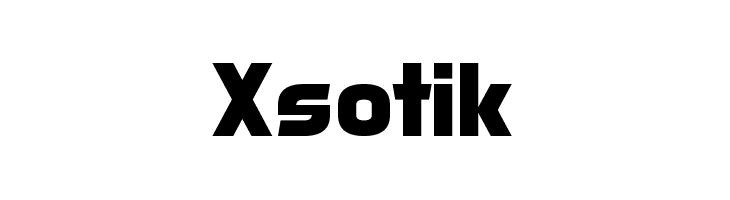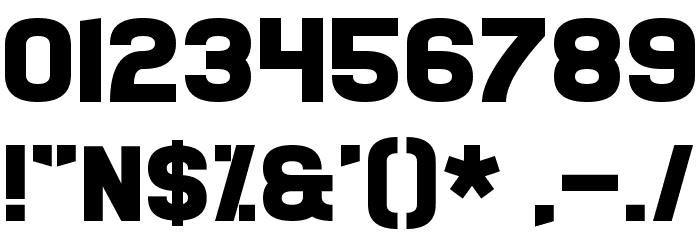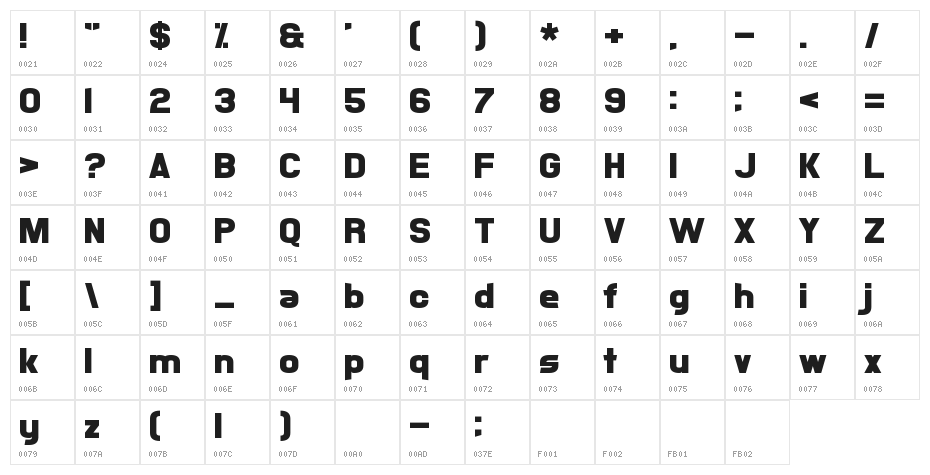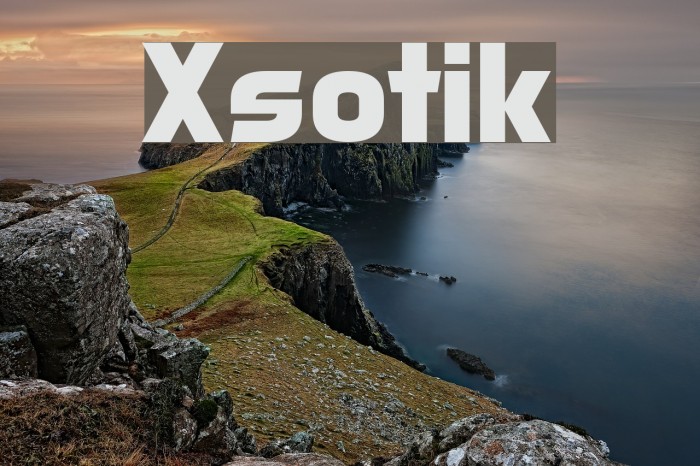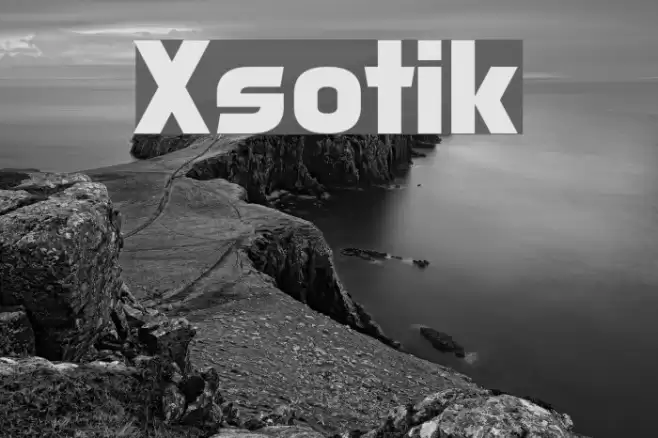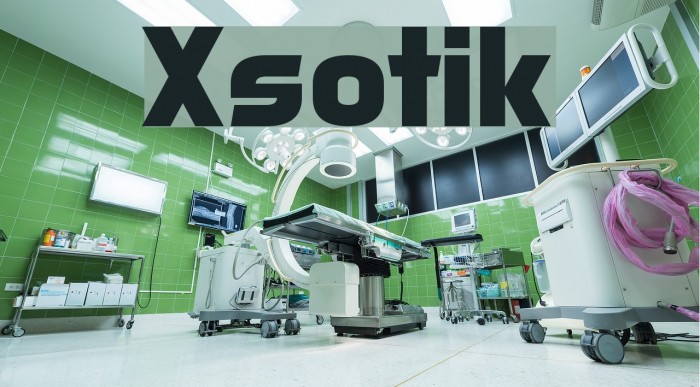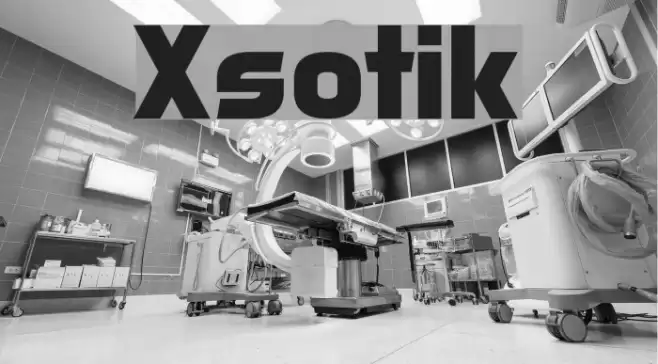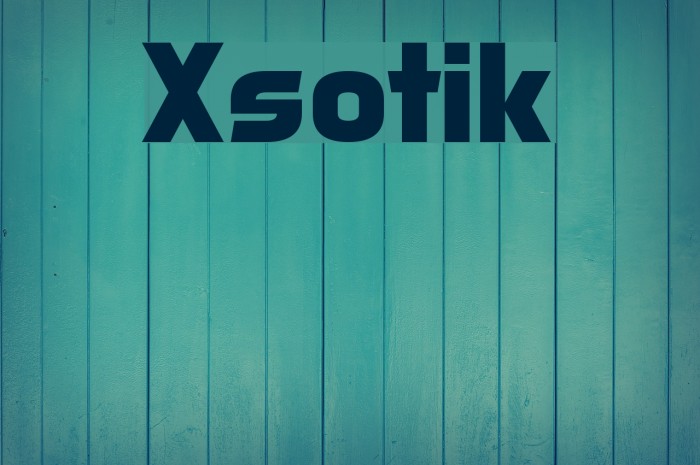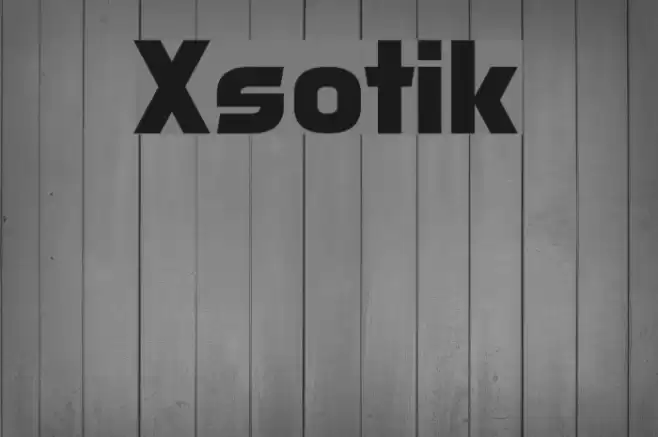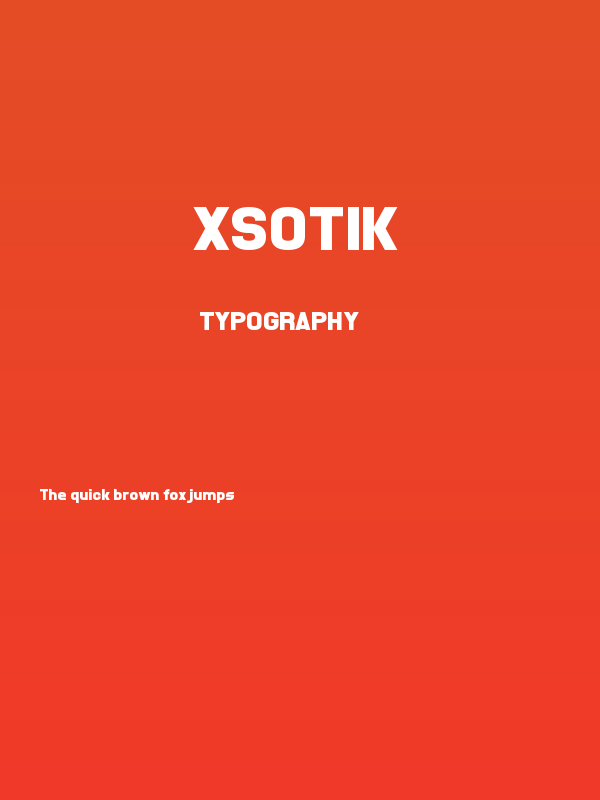
Xsotik Font
Xsotik Description
This font features a bold and impactful design with a strong presence. The characters are uniformly thick, providing a sense of stability and confidence. The uppercase and lowercase letters are well-proportioned, maintaining a consistent weight throughout. The numerals are clear and legible, making them suitable for various applications. Special characters are included, adding versatility to the font. The overall style is modern and assertive, making it ideal for projects that require a strong visual impact.
| Proposed Projects | Ideal for branding, headlines, posters, and advertising materials where a strong visual impact is desired. |